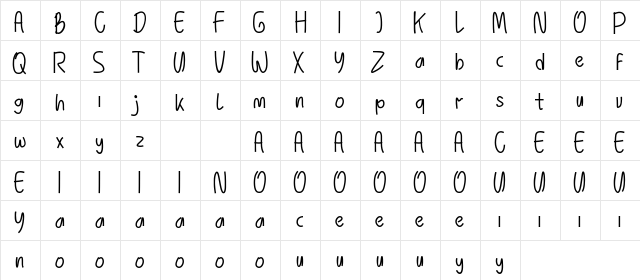
Sheinman Demo Regular
| Foundry | Edric Studio |
| Designer | Ali Alif Rahman & Suci Anita |
Design Context for Sheinman Demo Typeface
Sheinman Demo is a composed and adaptable typeface that performs quietly and consistently across a wide range of design contexts.